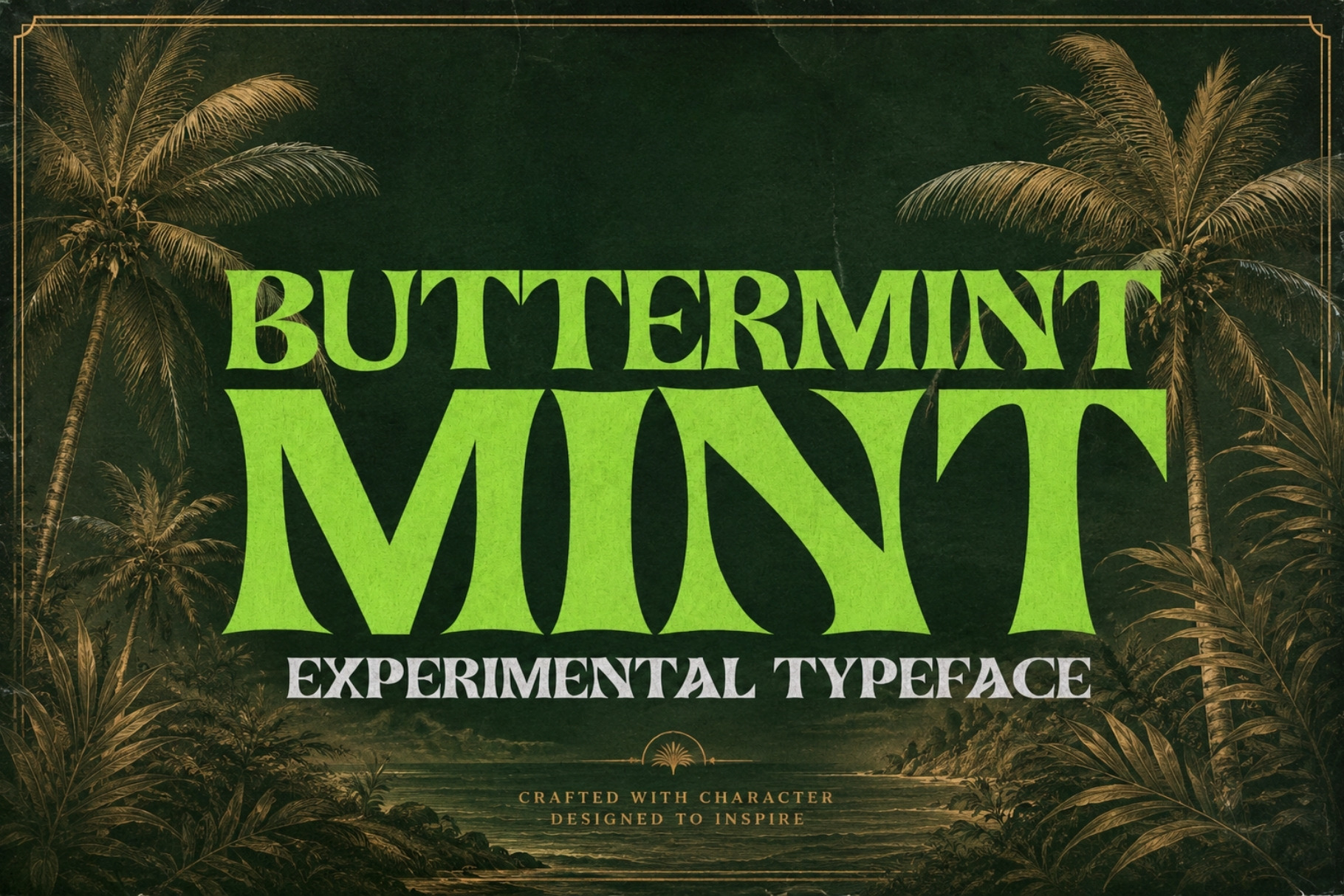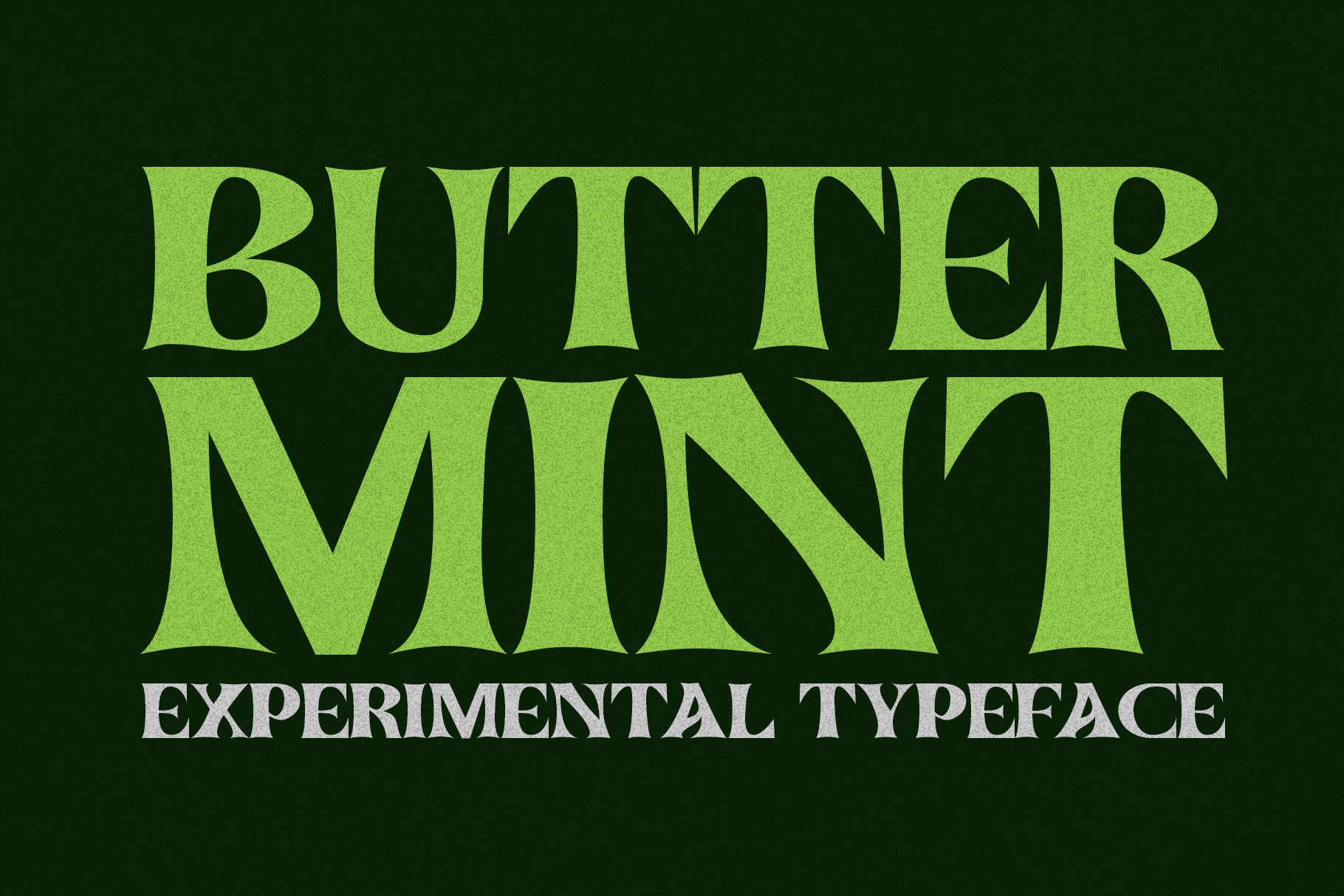
Buttermint is an experimental display typeface perfect for branding, advertising, headlines, editorials, magazines, posters, etc. Thanks to its distinctive letters, your designs will grab the viewers attention and keep it there. This is an all caps typeface so the lower and uppercase letters are the same. Really had a fine time making this typeface, I hope you will enjoy it too.